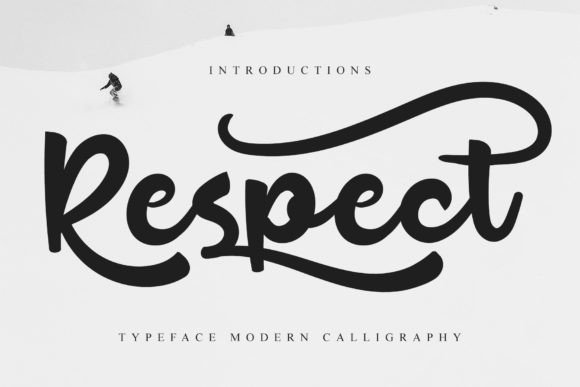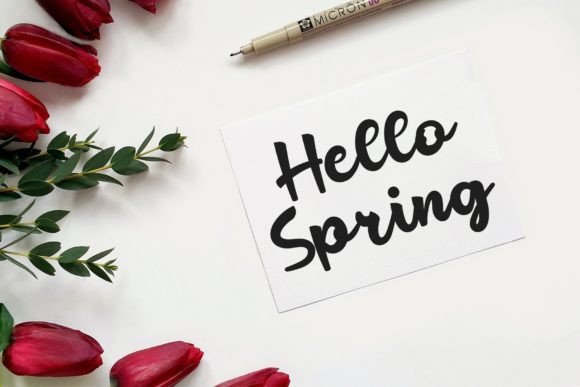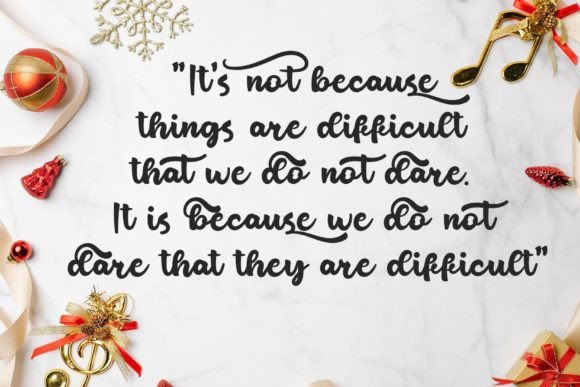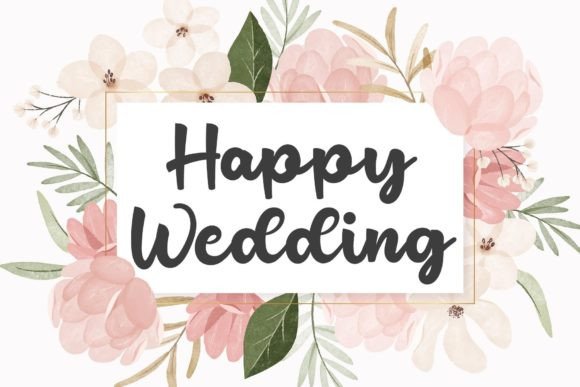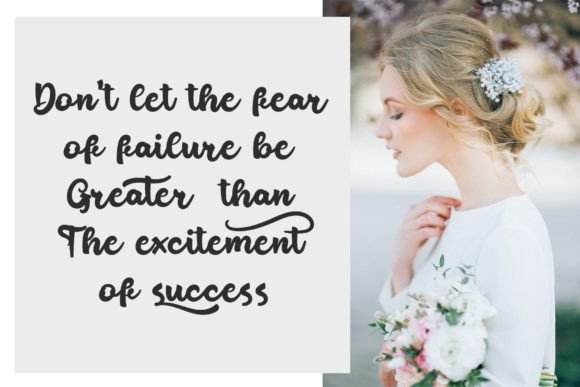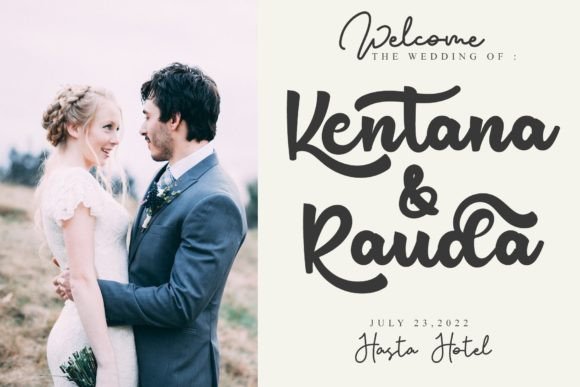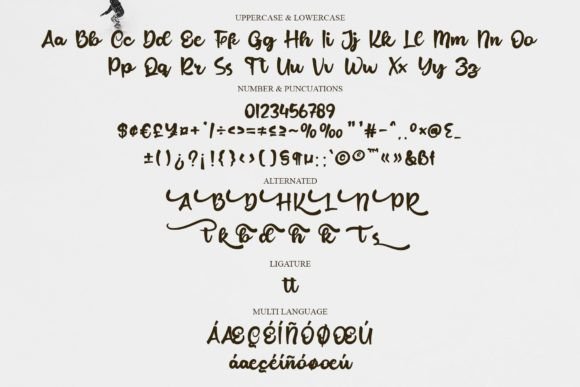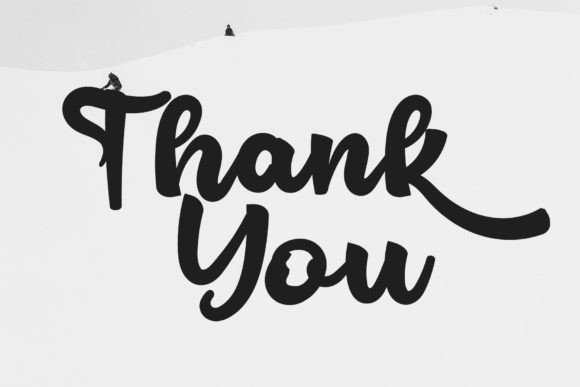
Respect Font
“Respect: Sweet and Cursive Handwritten Signature Script Font for Elegant Designs
Introducing ‘Respect,’ a sweet and cursive handwritten signature script font designed to bring a joyful and romantic touch to your projects. This gentle font looks gorgeous on a variety of design ideas and is the perfect choice for branding, logos, wedding materials, greeting cards, fashion, lookbooks, marketing promotions, or any occasion where you want to achieve a fancy, elegant, yet casual appearance. ‘Respect’ is more than just a typeface; it’s a design asset that adds a touch of sophistication to your work, making it visually appealing and memorable.
The sweet and cursive design of ‘Respect’ makes it an enchanting choice for a wide range of design applications. The signature script style adds a sense of elegance, enhancing the overall aesthetics and creating a visually pleasing experience.
For branding, logos, and various elegant design projects, ‘Respect’ becomes a standout choice, infusing a sense of sophistication and joy into your text. The font’s gentle and elegant design contributes to a stunning and memorable look.
In various creative projects, ‘Respect’ serves as a delightful element, creating a visual impact with its sweet and cursive signature script style. Its versatility adds a touch of joy and romance to your endeavors, making it suitable for a wide range of contexts.
‘Respect’s’ ability to add a joyful and romantic touch to design projects makes it a valuable addition to your font library. Whether you’re working on branding or marketing materials, this font brings a unique and stylish character to your designs.
In conclusion, ‘Respect’ is more than just a typeface; it’s a design companion that adds sophistication and joy to your creative toolkit. Let ‘Respect’ be the artistic element that transforms your logos, branding materials, and various elegant projects. Embrace the sweet and cursive charm of ‘Respect,’ and watch as it elevates your designs into visually enchanting and memorable experiences.”